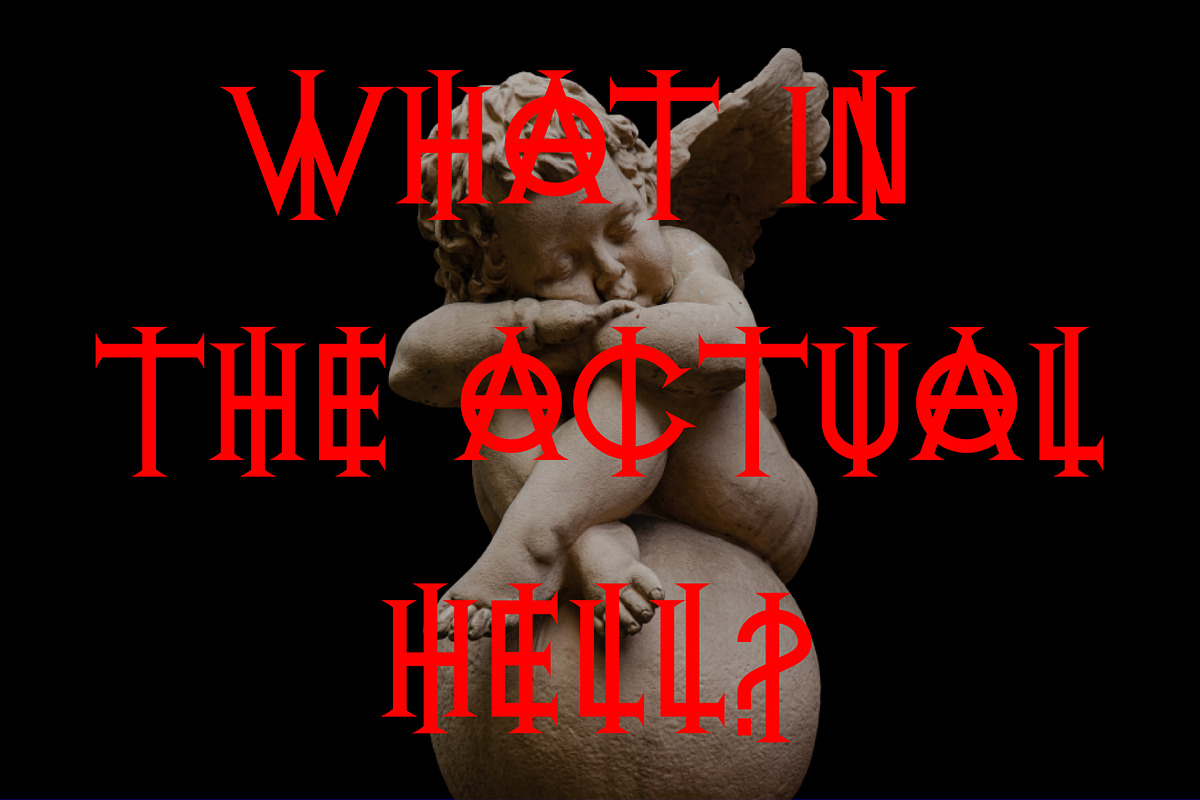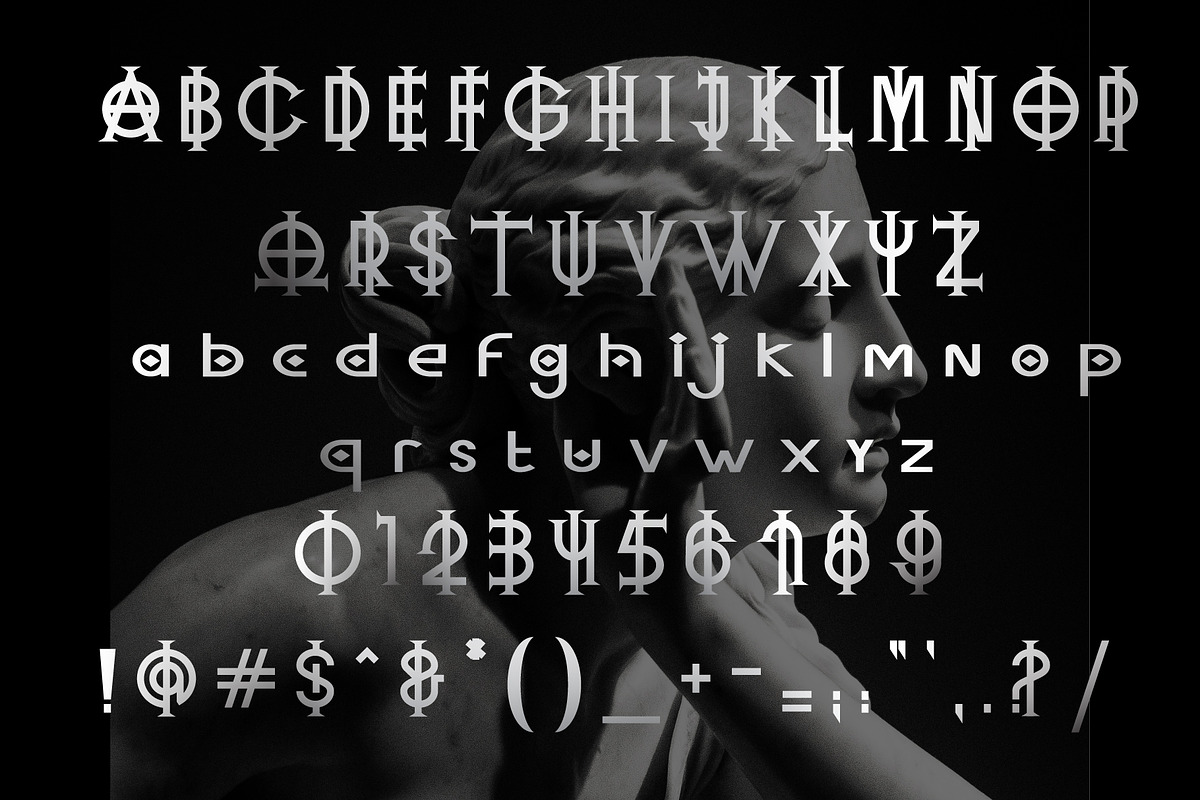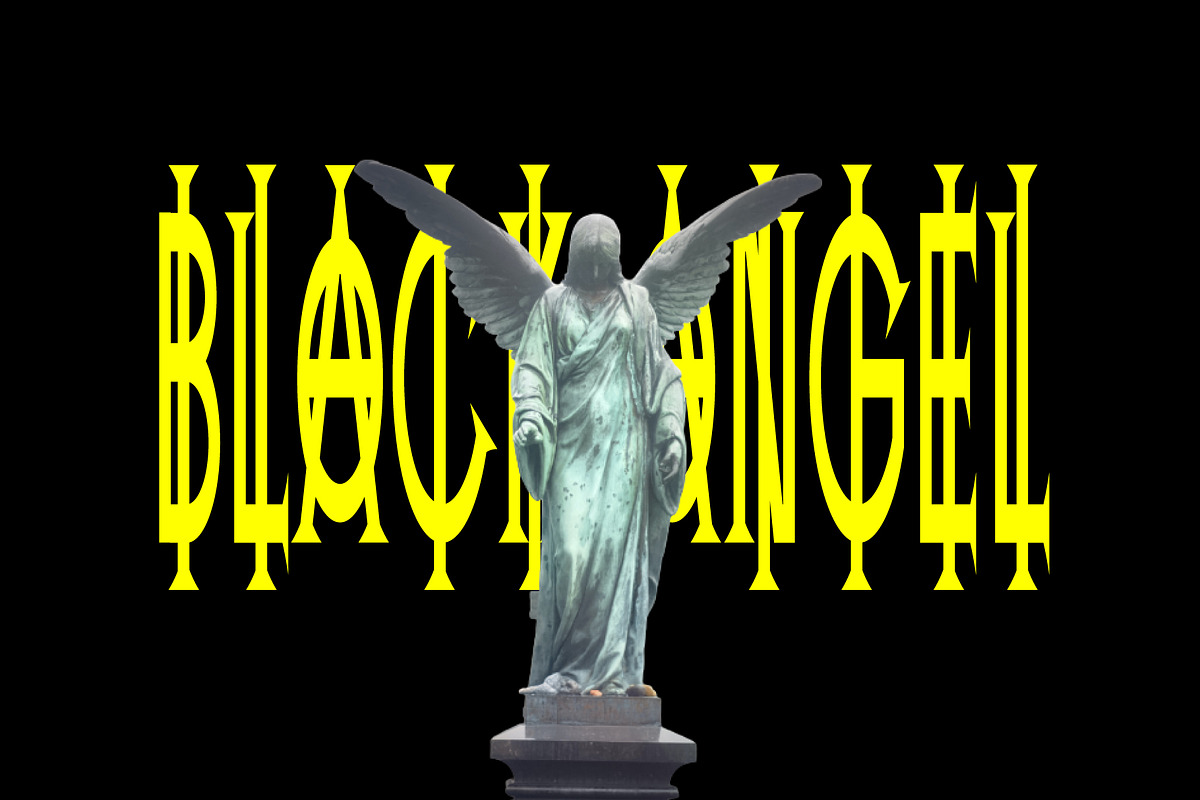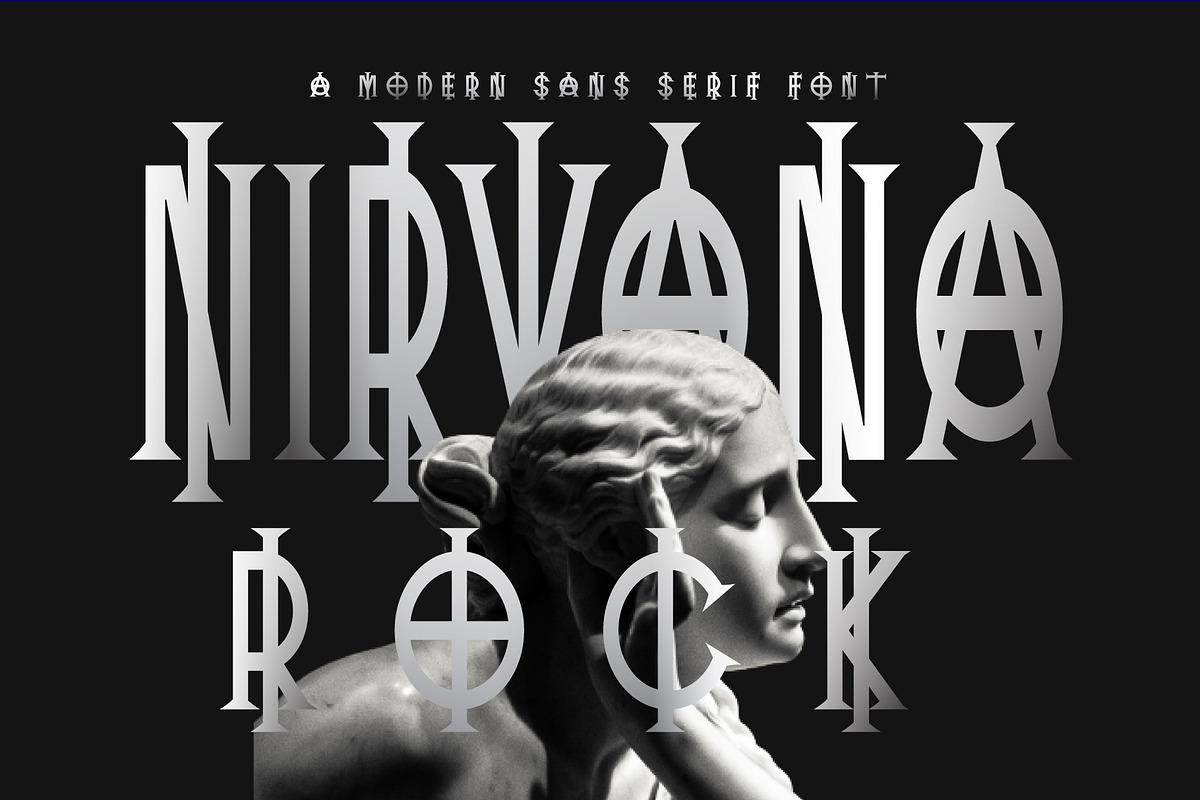
Nirvana Rock - Sans Serif Font
Introducing Nirvana Rock, a simple roman style sans serif font. So perfect for you who needs a typeface for logo designs, magazine, social media, brochure, and many more.